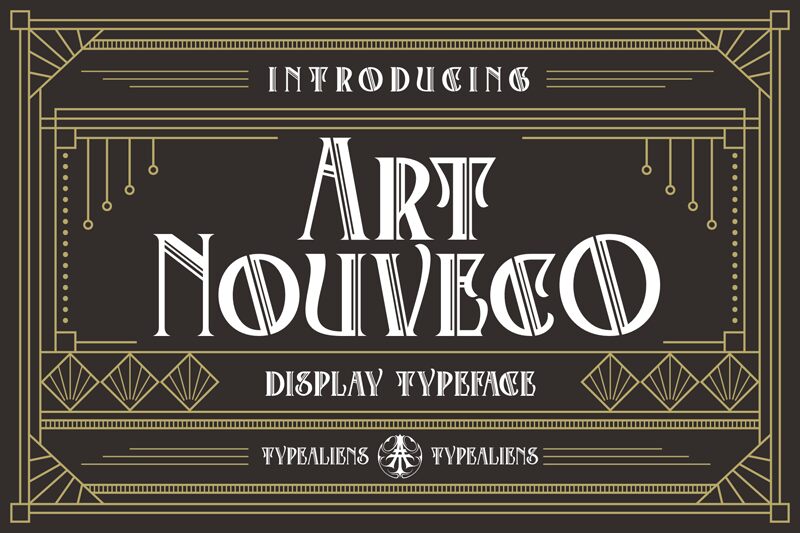
Art Nouveco, crafted by ilhamtaro, offers a striking retro aesthetic that harkens back to the ornamental artistry of a bygone era. The font's condensed letters exude elegance and sophistication with their elongated, flowing forms that seem to dance across the page. Its bold strokes and distinctive swells capture the essence of Art Nouveau design, making it an ideal choice for projects requiring a touch of vintage flair.
In terms of application, Art Nouveco's decorative nature shines in contexts that call for visual impact-think branding, poster design, and editorial headings where its characterful presence can be fully appreciated. This font is not just a typographical choice; it's an artistic statement that breathes life into words.